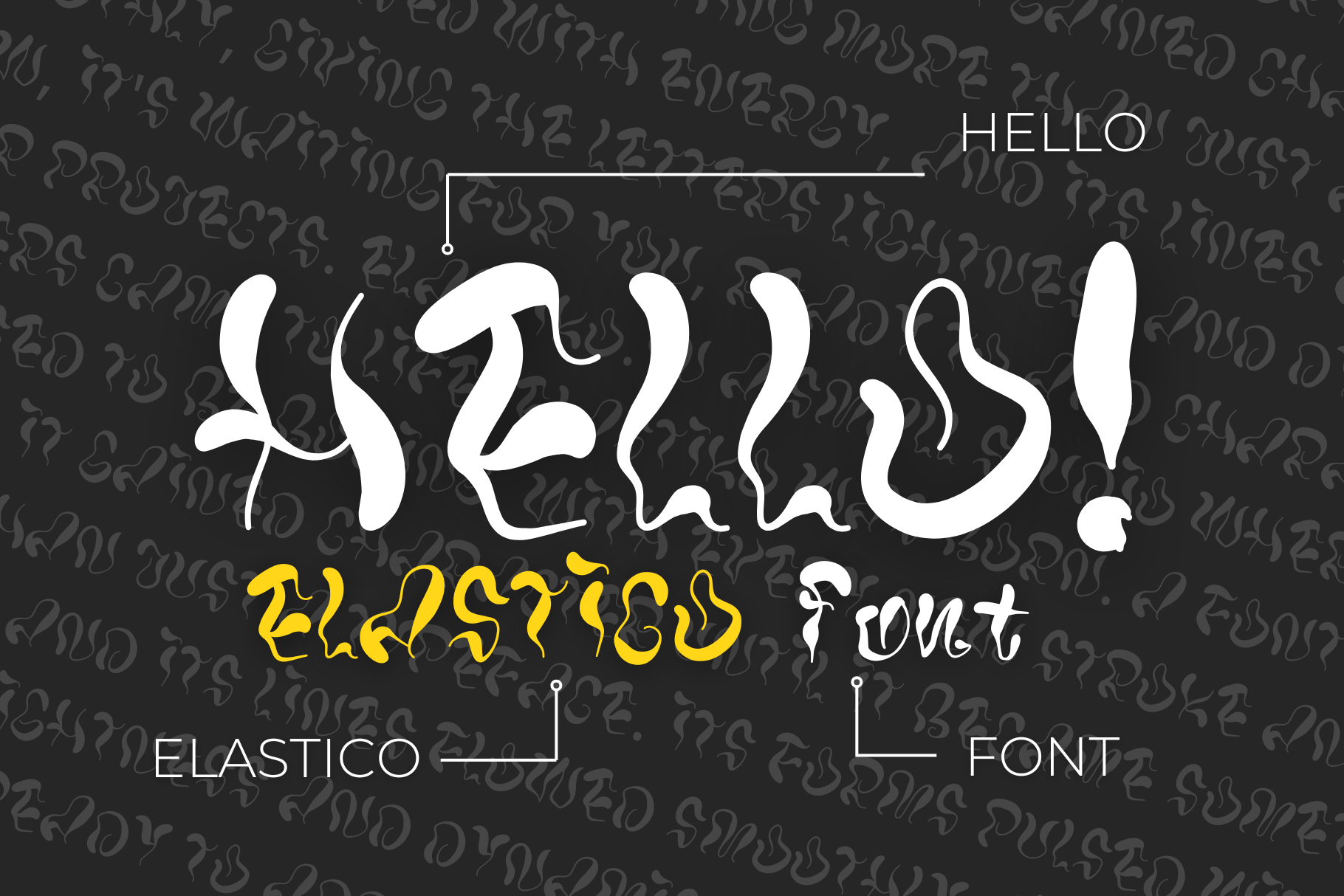
Elastico Modern Display Font
Elastico – A Modern Display Font Full of Motion and Energy
Elastico is a modern display font that combines motion and energy. Its fluid, organic lines give the letters a dynamic and expressive character, making typography come alive both on screen and in print.
Elastico is ideal for branding, social media, posters, invitations, book covers, and any project where a unique and authentic character is essential. It also works great for logos, stickers, clothing, t-shirts, and other designs that call for a stylish, handwritten touch.
- 98 glyphs – includes uppercase and lowercase letters, numbers, punctuation, and symbols